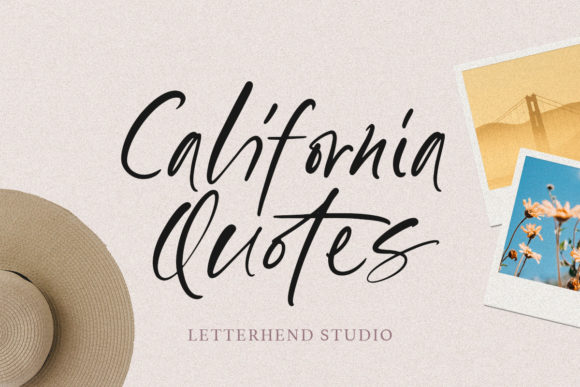
California Quotes Font: Elevate Your Designs with Elegance and Class
Are you looking for a font that can add a touch of elegance and class to your designs? Look no further than California Quotes Font. This lovely and relaxed script font is specifically crafted for those who need a beautiful and refreshing look to their designs. In this article, we’ll dive into the features and benefits of California Quotes Font, and explore how you can use it to elevate your designs.
What is California Quotes Font?
California Quotes Font is a script font that is designed to exude elegance and class. It features beautiful, flowing lines and a relaxed, casual feel that makes it perfect for a wide range of design applications. Whether you’re creating a logo, brochure, or social media graphic, California Quotes Font is sure to make your design stand out.
Key Features of California Quotes Font
- Elegant and Classy Design: California Quotes Font features a beautiful, elegant design that is sure to add a touch of sophistication to your designs.
- Relaxed and Casual Feel: The font’s relaxed and casual feel makes it perfect for designs that need to convey a sense of friendliness and approachability.
- Beautiful, Flowing Lines: The font’s flowing lines and curves create a beautiful, eye-catching effect that is sure to draw attention to your design.
- Versatile and Adaptable: California Quotes Font is versatile and adaptable, making it suitable for a wide range of design applications.
Benefits of Using California Quotes Font
There are many benefits to using California Quotes Font in your designs. Here are just a few:
Why Choose California Quotes Font?
- Adds Elegance and Class: California Quotes Font adds a touch of elegance and class to your designs, making them stand out from the crowd.
- Enhances Readability: The font’s clear and flowing lines make it easy to read, even at small sizes.
- Versatile and Adaptable: California Quotes Font is versatile and adaptable, making it suitable for a wide range of design applications.
- Unique and Eye-Catching: The font’s unique and eye-catching design makes it perfect for designs that need to grab attention.
How to Use California Quotes Font
California Quotes Font is easy to use and can be incorporated into a wide range of design applications. Here are a few ideas to get you started:
Design Ideas Using California Quotes Font
- Logos and Branding: Use California Quotes Font to create a beautiful and elegant logo that reflects your brand’s personality.
- Brochures and Flyers: Add a touch of elegance and class to your brochures and flyers with California Quotes Font.
- Social Media Graphics: Use California Quotes Font to create eye-catching social media graphics that grab attention.
- Wedding and Event Stationery: California Quotes Font is perfect for wedding and event stationery, adding a touch of elegance and sophistication to your designs.
Tips and Tricks for Using California Quotes Font
Here are a few tips and tricks to help you get the most out of California Quotes Font:
Getting the Most Out of California Quotes Font
- Use it Sparingly: Use California Quotes Font sparingly to add emphasis and create visual interest.
- Pair it with Other Fonts: Pair California Quotes Font with other fonts to create a unique and eye-catching effect.
- Experiment with Colors: Experiment with different colors and textures to add depth and interest to your designs.
- Pay Attention to Kerning: Pay attention to kerning and spacing to ensure that your text is easy to read and visually appealing.
California Quotes Font is a beautiful and elegant script font that is perfect for designs that need to convey a sense of elegance and class. With its flowing lines, relaxed feel, and versatile design, it’s sure to become a favorite in your design arsenal. Whether you’re creating a logo, brochure, or social media graphic, California Quotes Font is sure to elevate your designs and add a touch of sophistication.